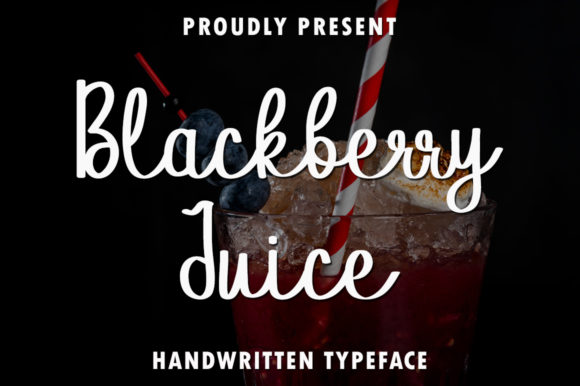
The Designer’s Delight: Blackberry Juice Font
I’ll never forget the moment I stumbled upon the Blackberry Juice font. I was working on a project for a client who wanted a elegant and sophisticated look, but I was struggling to find the right font. That’s when I discovered Blackberry Juice, and it instantly became my go-to choice. Its delicate and elegant handwritten style won me over, and I knew I had to share it with the world.
As a designer, I’m always on the lookout for fonts that can elevate my work. Blackberry Juice is definitely one of them. Here’s what I love about it:
- ✨ Delicate and elegant handwritten style that’s perfect for a variety of design projects
- ✅ Well-rounded letters that make it easy to read and recognize
- 💫 Incredibly versatile style that works well for both digital and print designs
- 🎨 A wide range of OpenType features, glyphs, and stylistic alternates to experiment with
Of course, no font is perfect, and Blackberry Juice has a few quirks:
- 🤔 Some users may find the font a bit too delicate for certain design projects
- ⚠️ It may not work well with very small font sizes or low-resolution images
- Experiment with OpenType features, glyphs, and stylistic alternates to add some personality to your design
The Story Behind Blackberry Juice
Blackberry Juice was designed by a talented typographer who wanted to create a font that would evoke the feeling of a warm summer day. The designer was inspired by the delicate curves of blackberries and the elegance of handwritten script fonts. The result is a font that’s both sophisticated and approachable, perfect for a wide range of design projects.
| What is the best way to use Blackberry Juice font? | Blackberry Juice is a versatile font that can be used for a variety of design projects, including digital and print designs. Experiment with OpenType features, glyphs, and stylistic alternates to add some personality to your design. |
| Is Blackberry Juice font suitable for body text? | While Blackberry Juice is a beautiful font, it may not be the best choice for body text due to its delicate and elegant style. It’s better suited for headlines, titles, or short paragraphs. |